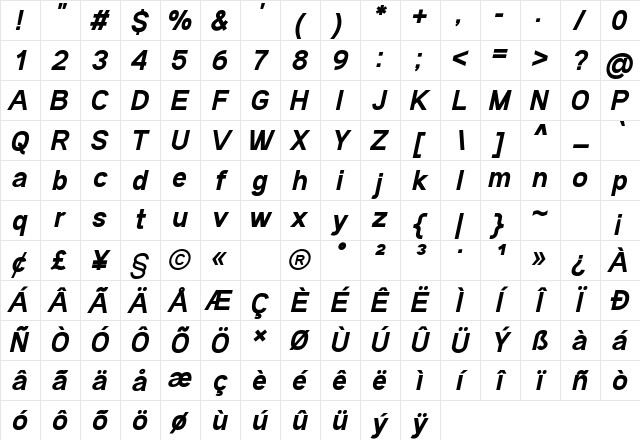
Andala is a composed and adaptable typeface that performs quietly and consistently across a wide range of design contexts. The slanted form adds forward momentum and visual energy. Its bold stroke weight gives it real presence on the page.
Pro Tip: Use Andala for emphasis, pull quotes, and subheadings where its slanted energy can add rhythm to the layout.